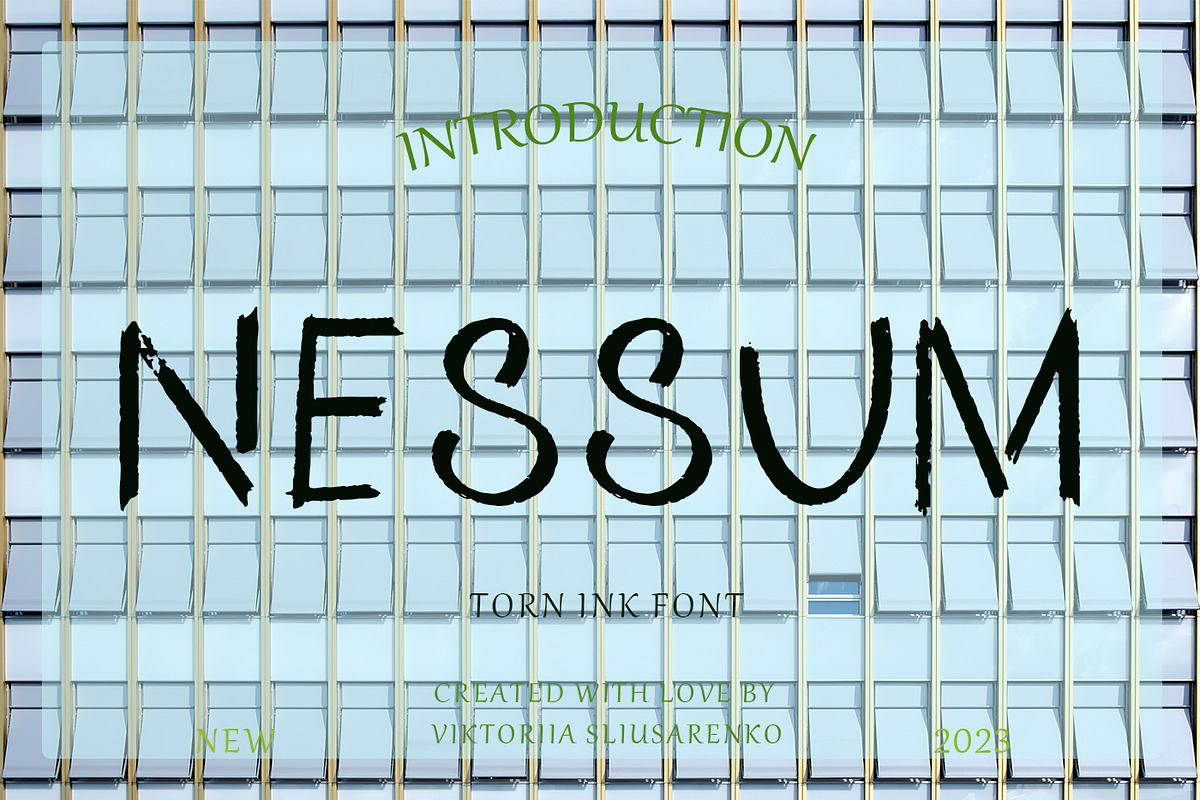
NESSUM - Torn Ink Font Free Download is a bold, edgy typeface that combines a distressed, torn effect with a rugged ink-inspired look. Perfect for horror designs, vintage branding, grunge art, album covers, and anything that needs a raw, rebellious feel.
With its jagged, ink-splattered strokes and torn edges, this font brings a sense of chaos and intensity to your designs. Whether you’re working on posters, streetwear branding, or gritty marketing materials, NESSUM adds a fierce, eye-catching element to your project.